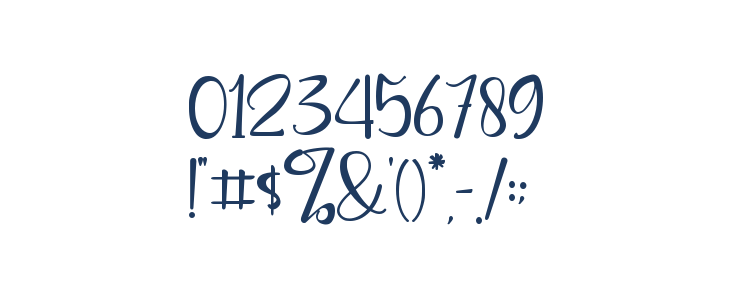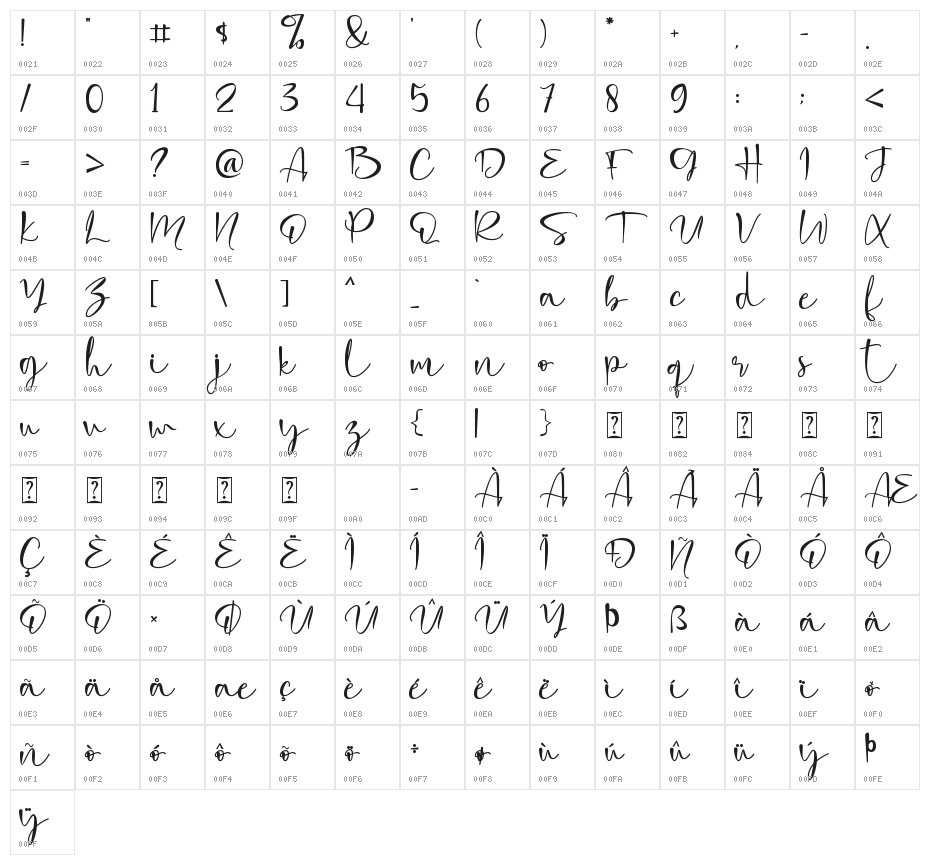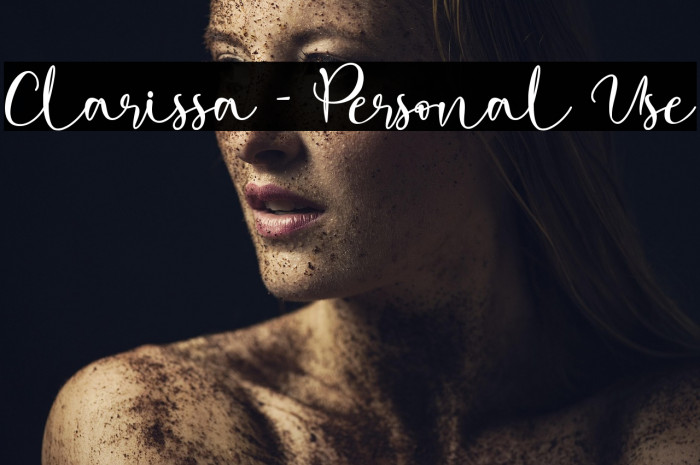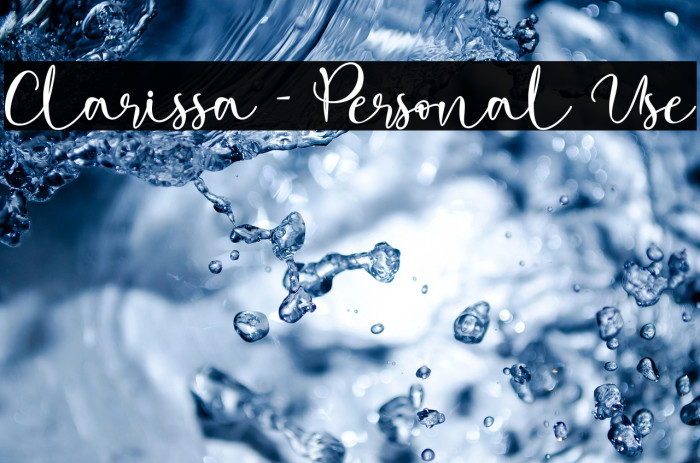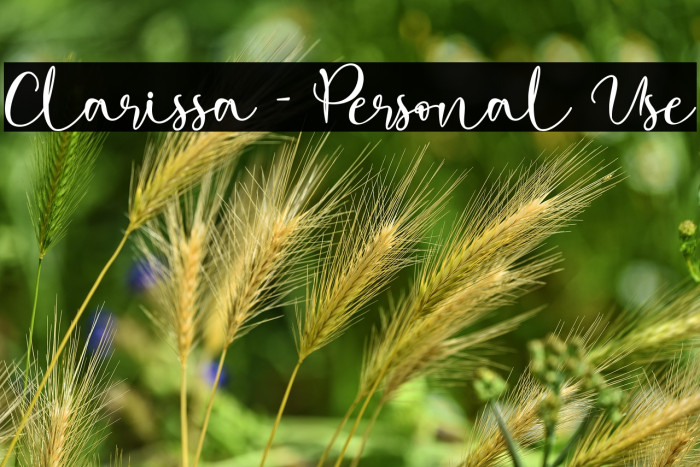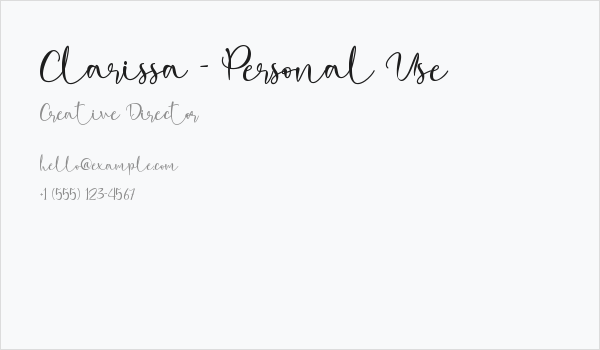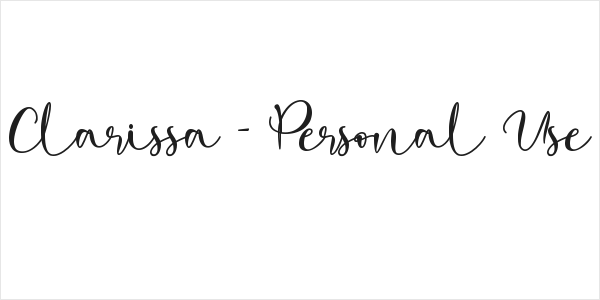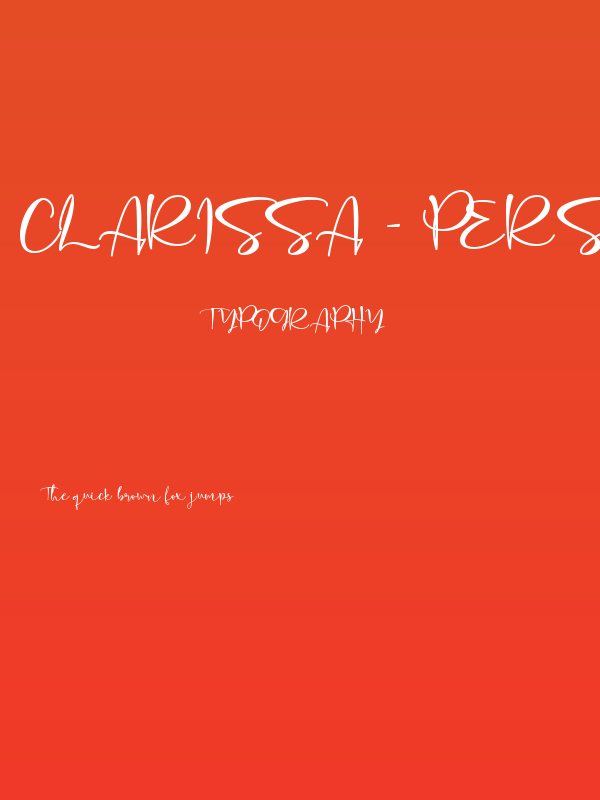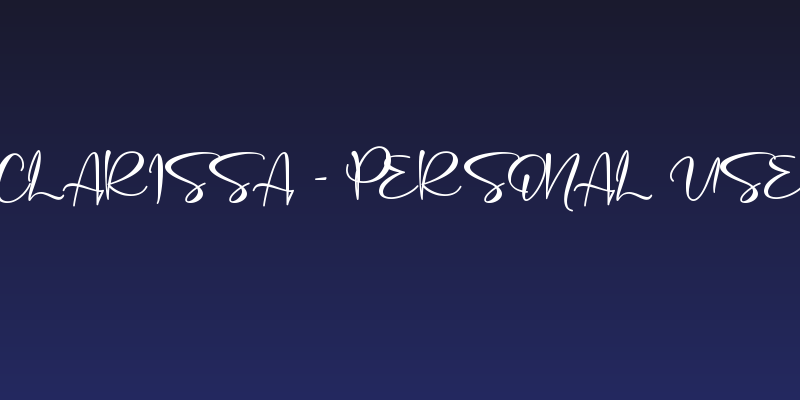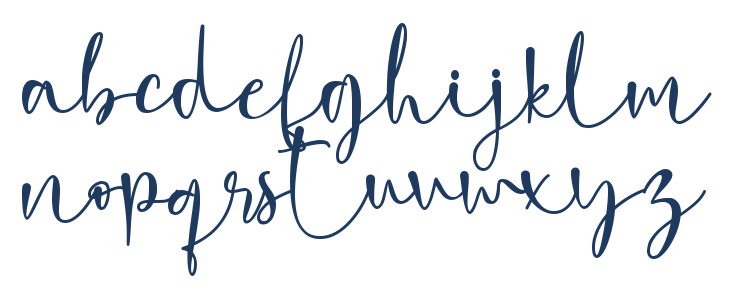
Clarissa - Personal Use Font
Clarissa - Personal Use Description
This font features a dynamic and flowing script style, characterized by its elegant and fluid letterforms. The uppercase letters exhibit a playful yet sophisticated flair, with each character connecting seamlessly to the next. The lowercase letters maintain a consistent rhythm, enhancing the overall harmony of the design. Numbers and special characters are crafted with the same attention to detail, ensuring versatility across various applications. The font's smooth curves and balanced proportions make it ideal for projects that require a personal and artistic touch.
| Use Case | Logos, Invitations, Social Media |
| Proposed Projects | Ideal for wedding invitations, greeting cards, branding, and social media graphics. |